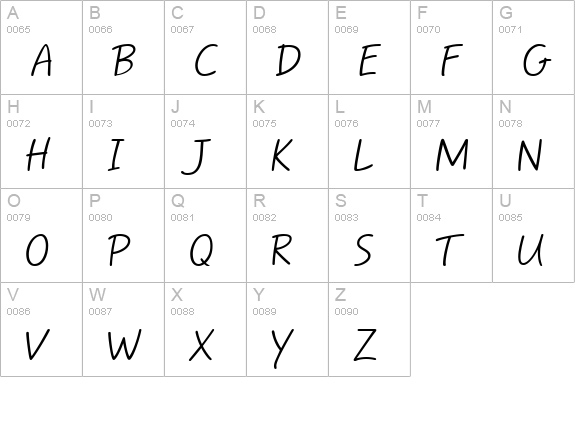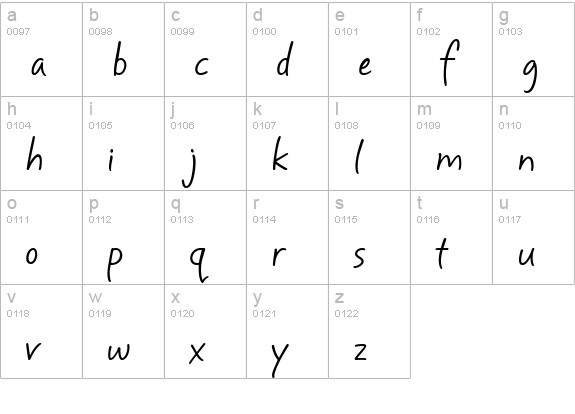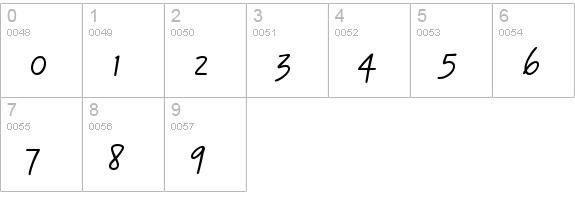
Mayfield Font Details
Mayfield font is a beautifully crafted typeface that exudes elegance and sophistication. Its sleek and modern design makes it perfect for a wide range of creative projects, from branding to editorial design. The clean lines and subtle curves of Mayfield font give it a timeless appeal that will elevate any project it is used in. The best part about Mayfield font is that it is completely free to download at FontsMarket.com. This means that you can add this stunning typeface to your font library without having to spend a dime. Whether you are a seasoned designer or just starting out, Mayfield font is a versatile and stylish choice that is sure to impress. Don't miss out on the opportunity to enhance your designs with this fantastic font - download Mayfield font today!